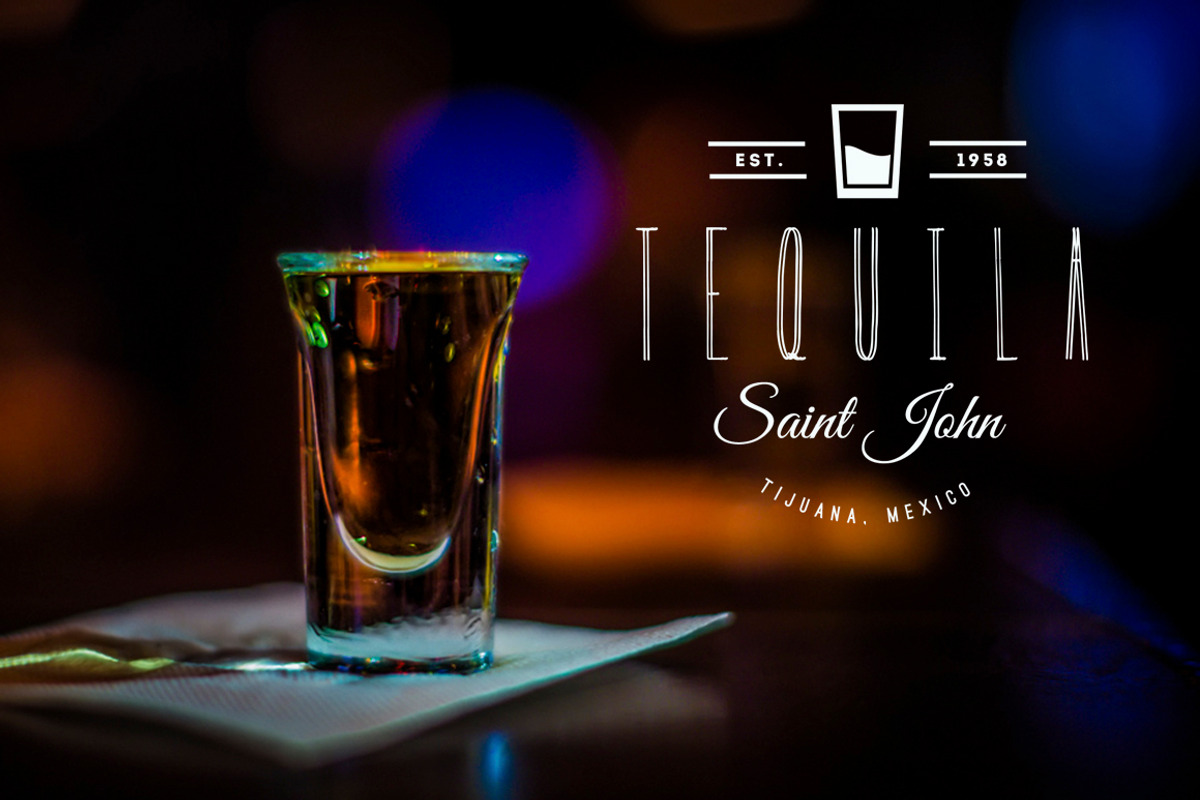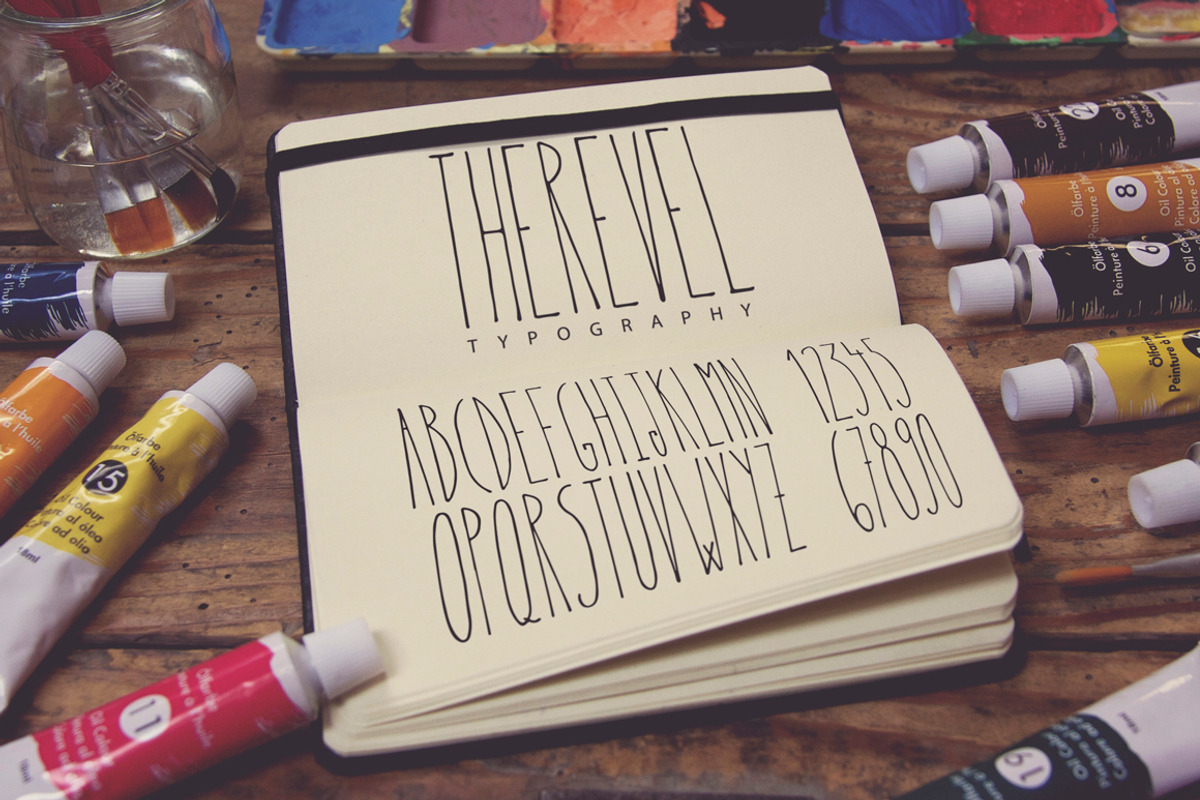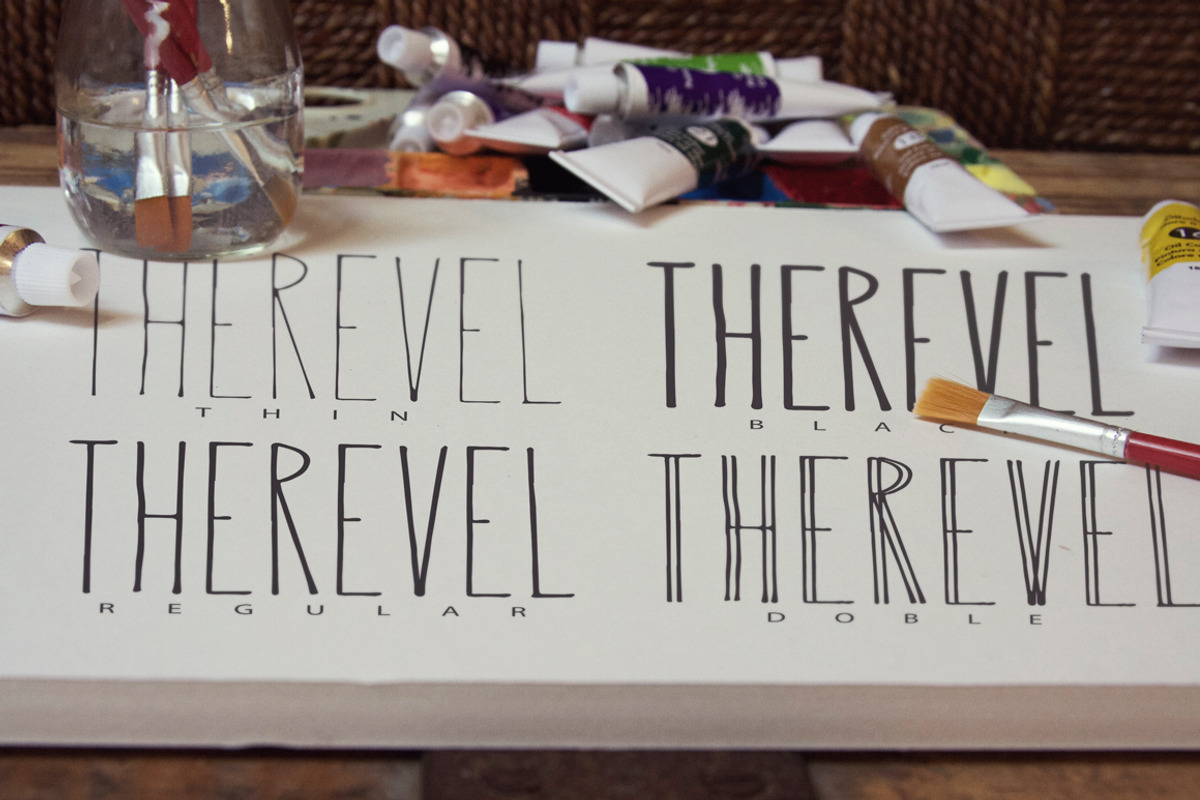
The Revel Family Typeface
The Revel Family Typeface by MoonfishStudio is a font selected for branding, posters, packaging, typography.
- Therevel Thin
- Therevel Regular
- Therevel Black
- Therevel Doble
Why The Revel Family Typeface is worth a look
The Revel Family Typeface by MoonfishStudio fits naturally into Branding, posters, packaging, typography.